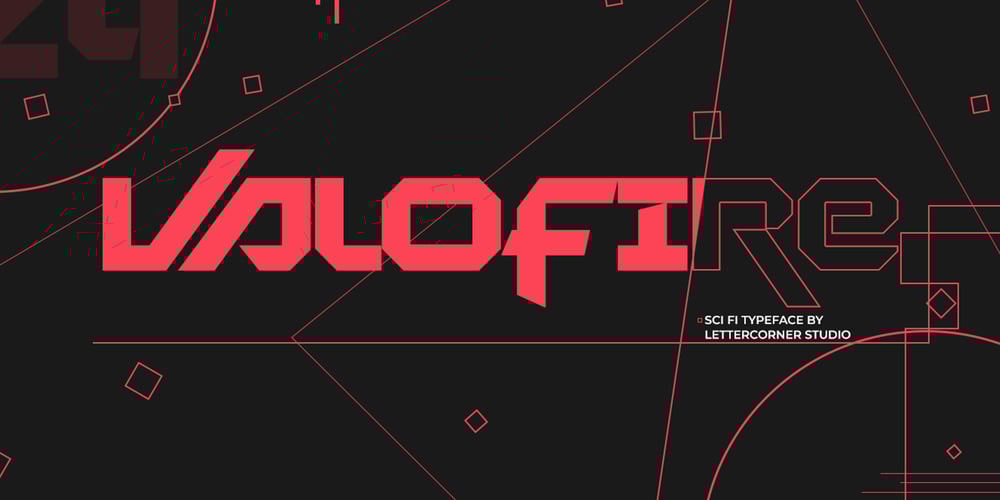
Valofire
Valofire font
Valofire Font Family was designed by Muhammad Afif Ersya and published by Mevstory Studio. Valofire contains 1 styles and family package options. Valofire beautiful typographic harmony for a diversity of design projects, including logos & branding, social media posts, advertisements & product designs.